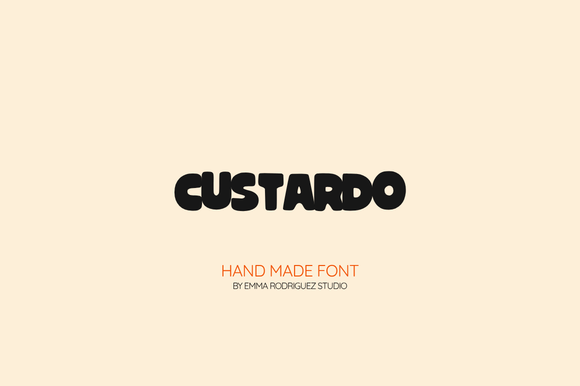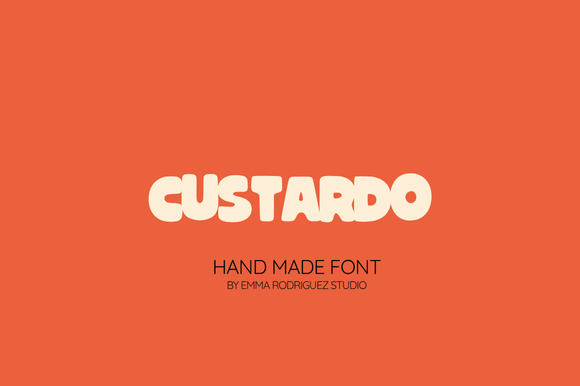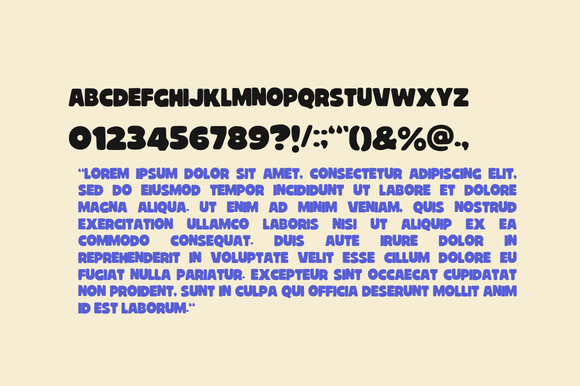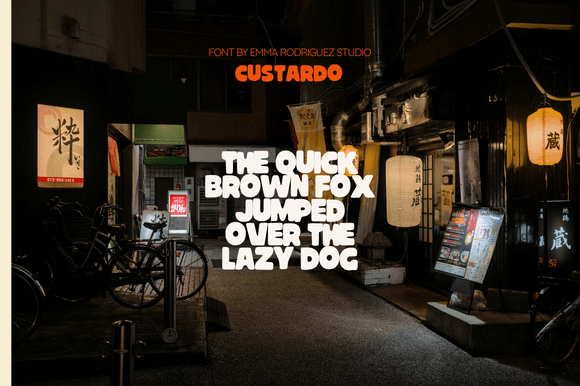
Crafting a Statement with the Custardo Font
There’s that moment when a design just clicks, and everything falls into place. The colors, the typography, the overall vibe – it’s like magic. For designers, finding the right font can be the difference between a decent design and a truly show-stopping one. And that’s where the Custardo Font comes in.
This chunky, soft-edged display font is built for making a statement. With its bold, playful weight and rounded letterforms, it’s the perfect choice for designers looking to add some attitude to their work. Whether you’re creating edgy branding, music artwork, or bold posters, the Custardo Font is sure to stand out without needing any extra flair. Its clean, readable design makes it a valuable addition to any designer’s toolkit.
With its versatility and ease of use, the Custardo Font is a must-have for any creative looking to add some personality to their designs.
Custardo Font Key Features
- Size: The font comes in multiple weights, ranging from Thin (100) to Extra Bold (900), providing flexibility for various design applications.
- Unique Characteristics: Custardo Font features a distinctive, rounded design with a subtle flair at the terminals, giving it a friendly and approachable feel.
- Language Support: Custardo Font supports a wide range of languages, including Latin, Cyrillic, and Greek, making it suitable for global design projects.
- Scalability: The font is designed to be highly scalable, ensuring that it remains legible and visually appealing at various font sizes and resolutions.
Custardo Font Review
Overall, I think Custardo is a lovely font that can add a touch of elegance to your designs. ✨ The fluid curves and organic feel make it perfect for creating a sense of whimsy and playfulness. It’s great for branding and packaging designs, especially for food and beverage companies.
However, I do have a few concerns about the font’s limitations. ⚠️ First, it can be a bit too playful for more serious or formal designs. The font’s curves can sometimes make it hard to read, especially in smaller text sizes. Additionally, the font family is relatively small, with only a few weights and styles available.
- ✨ Beautiful, fluid curves that add a touch of elegance to designs
- ✨ Perfect for branding and packaging designs, especially for food and beverage companies
- ⚠️ Can be too playful for serious or formal designs
- ⚠️ Limited font family with only a few weights and styles available
- ⚠️ Can be hard to read in smaller text sizes due to the font’s curves
In conclusion, Custardo is a great font for designers who want to add a touch of whimsy and playfulness to their designs. However, it’s not the best choice for more serious or formal designs. With a bit more development, I think the font family could be expanded to include more weights and styles, making it a more versatile choice for designers.
Some tips for getting the most out of Custardo Font include using it for titles and headings, as it is a bold and eye-catching font. It is also great for creating a unique and playful atmosphere in your designs. Common use cases include logo design, branding, and social media graphics.
Alternatives to Custardo Font
Pacifico is a beautiful, elegant script font that works well for headings and titles. It has a strong, sophisticated feel to it, making it perfect for luxury brands and high-end designs. Pacifico is more elegant than Custardo Font, with a more refined and sophisticated feel.
Great Vibes is a modern, elegant script font that is perfect for creating a sense of luxury and sophistication. It has a strong, bold feel to it, making it ideal for headings and titles. Great Vibes is similar to Custardo Font in terms of its elegance, but it has a more modern and sleek feel.
Yes, Custardo Font is available in multiple font weights, including light, regular, medium, bold, and extra bold. This allows designers to create a range of visual hierarchies and emphasis within their designs.